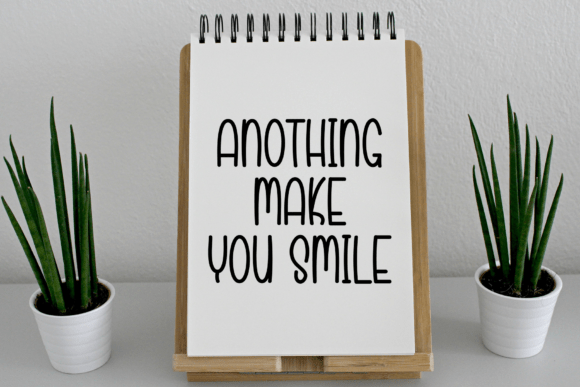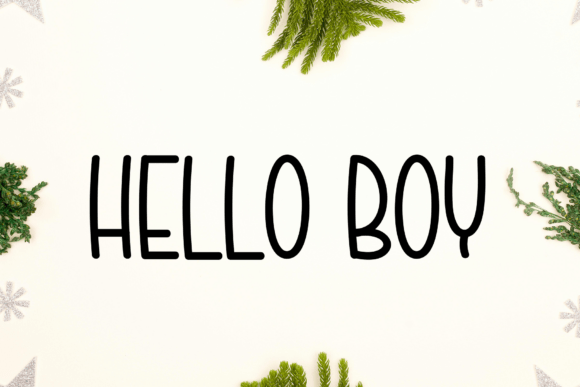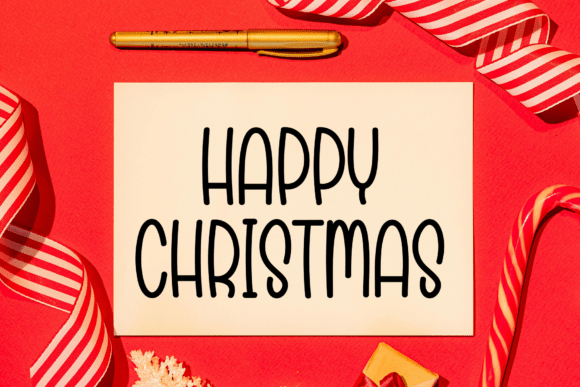
Introduction to Gathring Font
Gathring is a handwritten font that looks like it was drawn with a marker.
Having a relaxed and sporty feel, it is very suitable for branding, logos, wedding supplies, greeting cards, fashion, lookbooks, marketing promotions, and whenever you want your design to look luxurious and elegant but still casual .